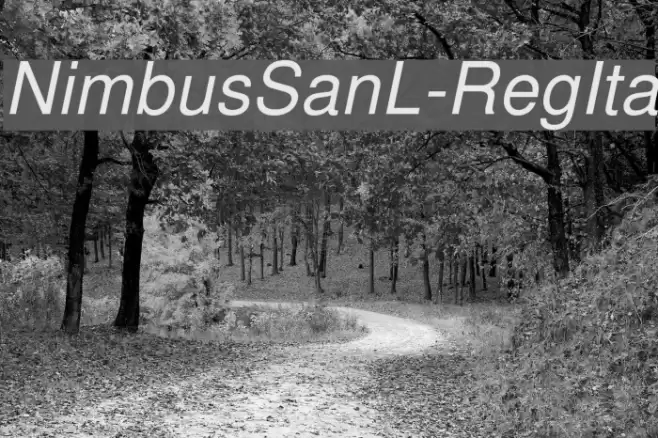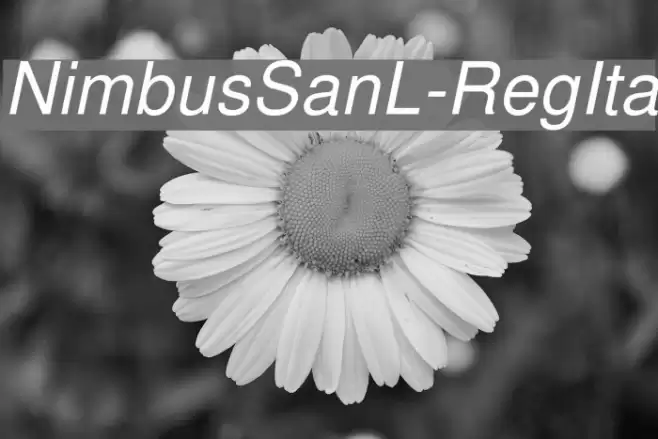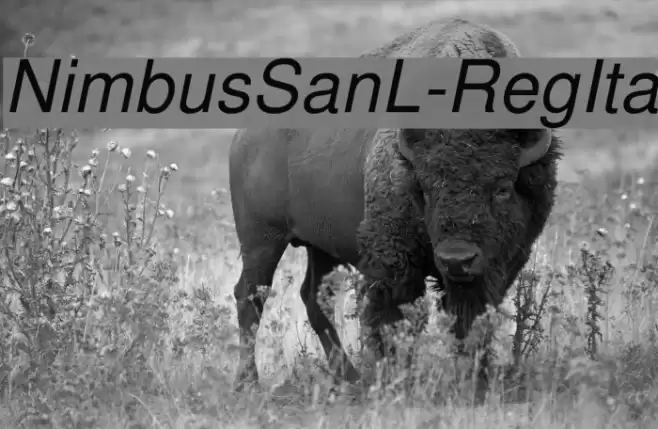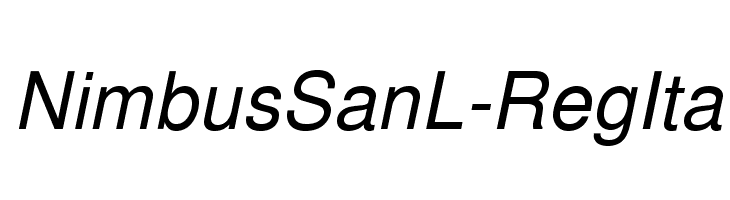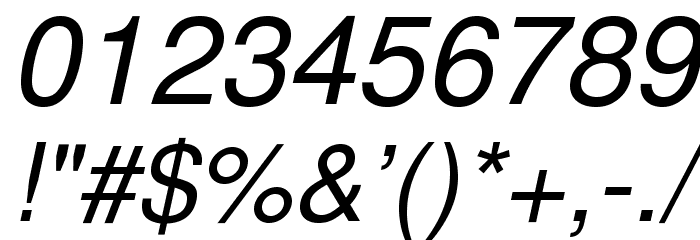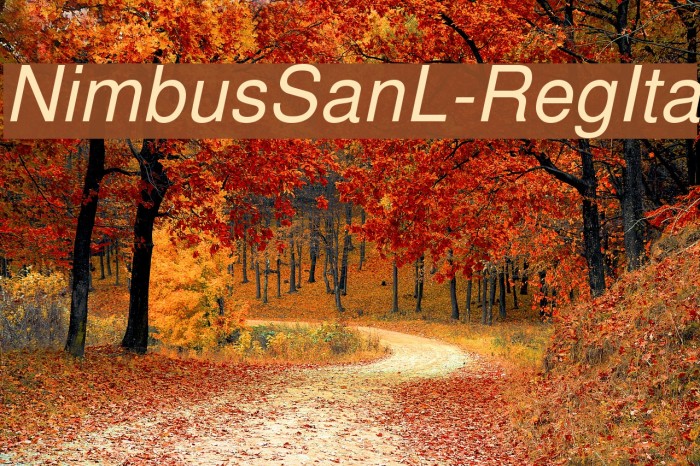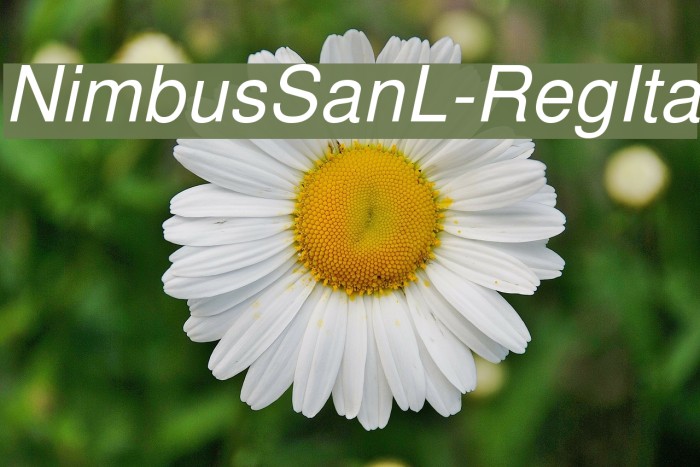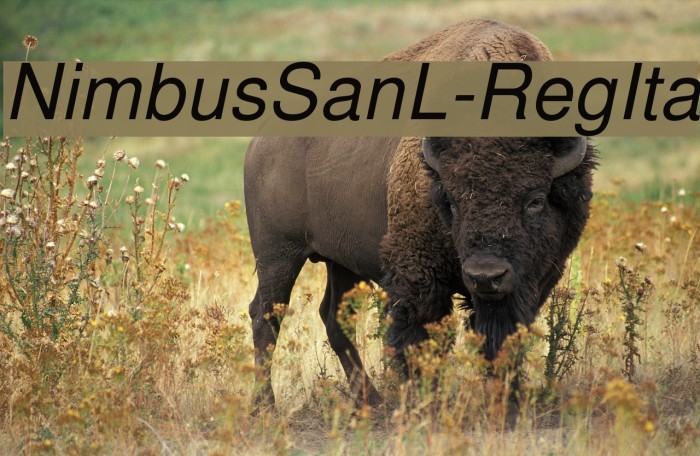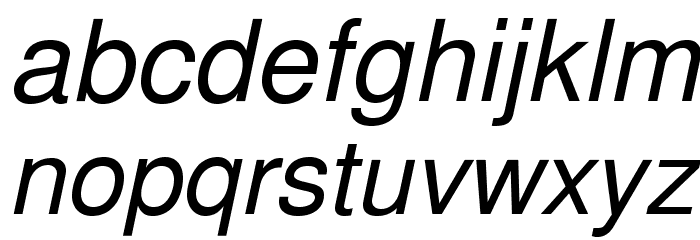
NimbusSanL-RegIta Font
NimbusSanL-RegIta Description
This font features a clean and modern sans-serif design with a slight italic slant, giving it a dynamic and contemporary feel. The characters are well-proportioned, with smooth curves and a consistent stroke width that enhances readability. The uppercase letters are bold and assertive, while the lowercase letters maintain a friendly and approachable appearance. The numerals are clear and distinct, making them suitable for a variety of applications. Special characters are well-integrated, maintaining the overall aesthetic of the font.
A modern, italic sans-serif font with clean lines and a dynamic style from Uncategorized fonts.
- Proposed Projects: Ideal for use in branding, advertising, and digital media where a modern and approachable look is desired.